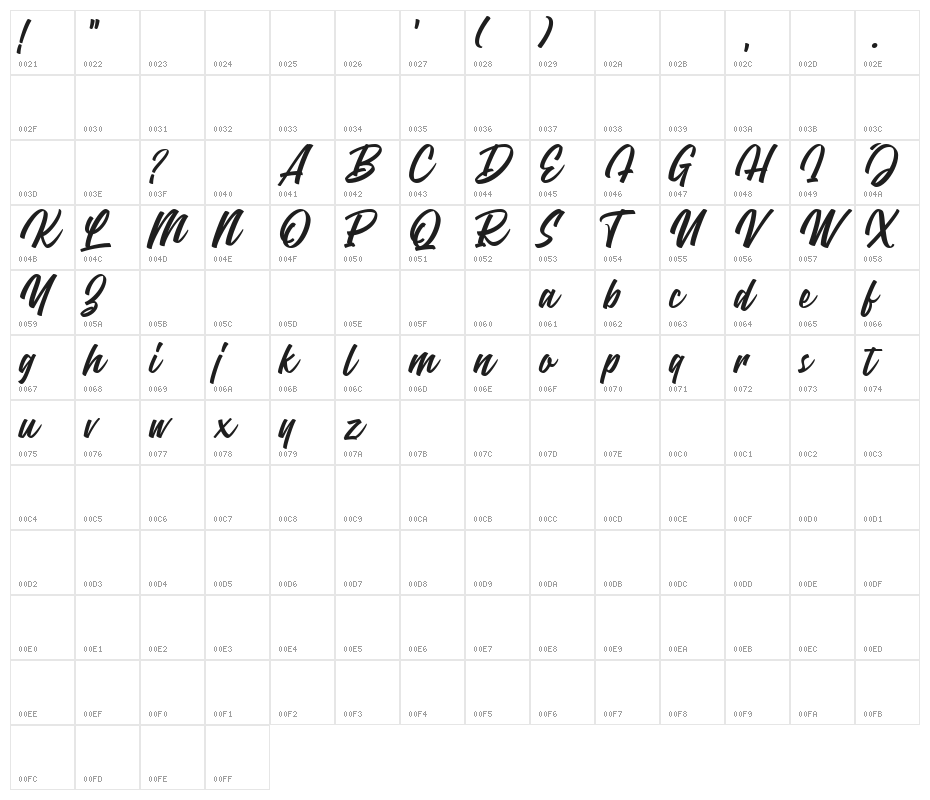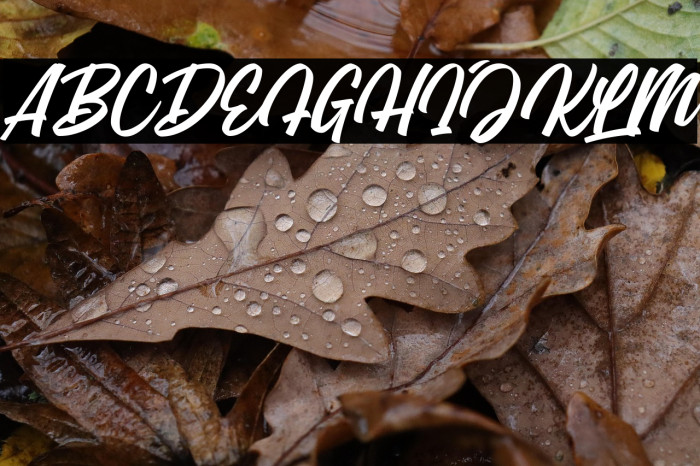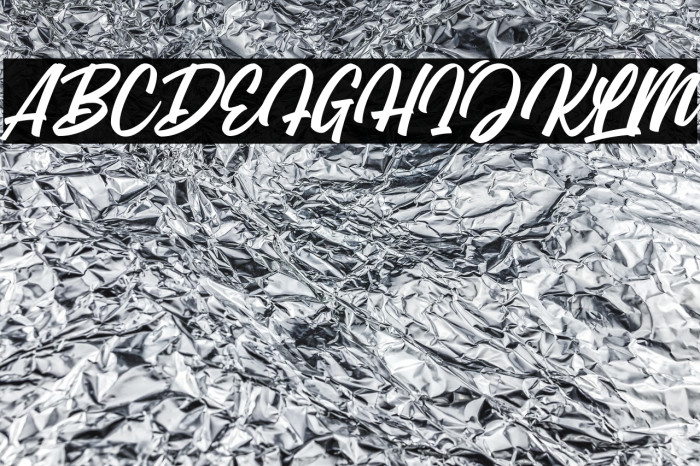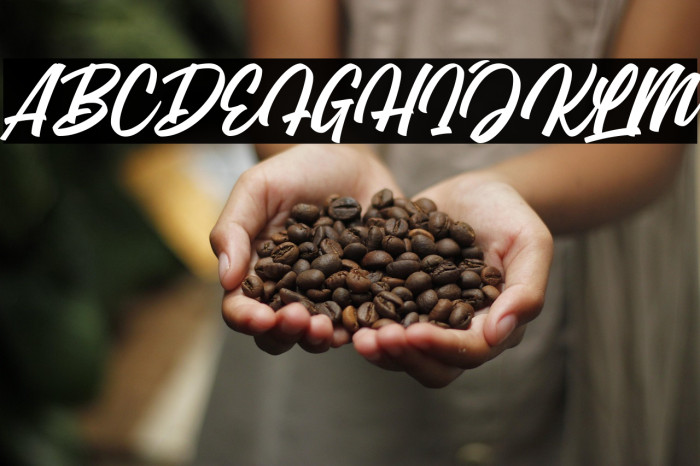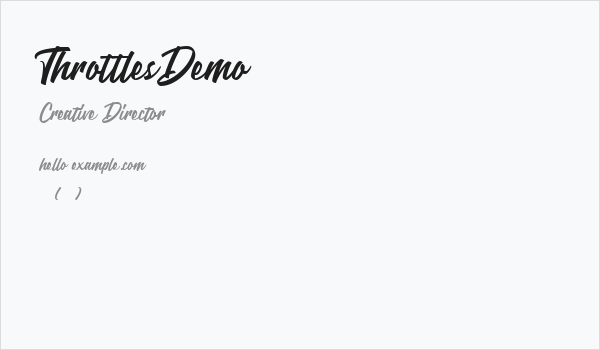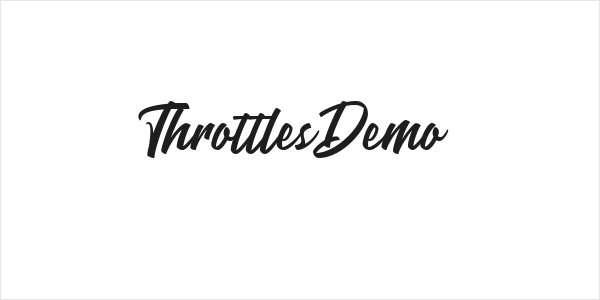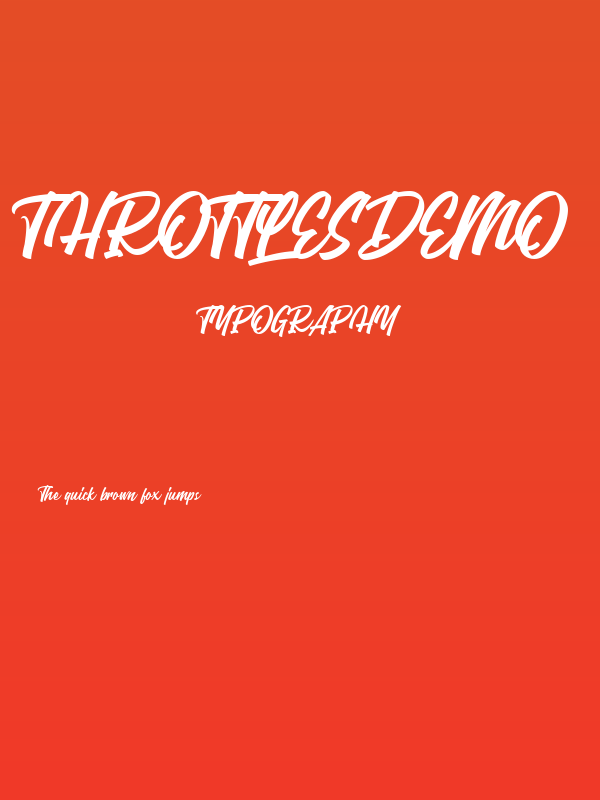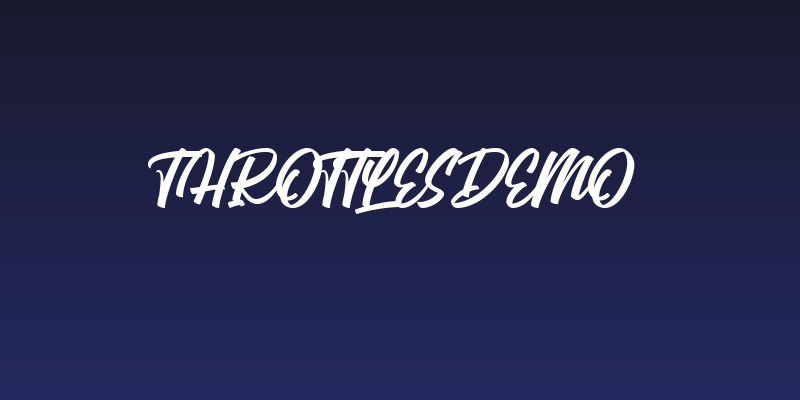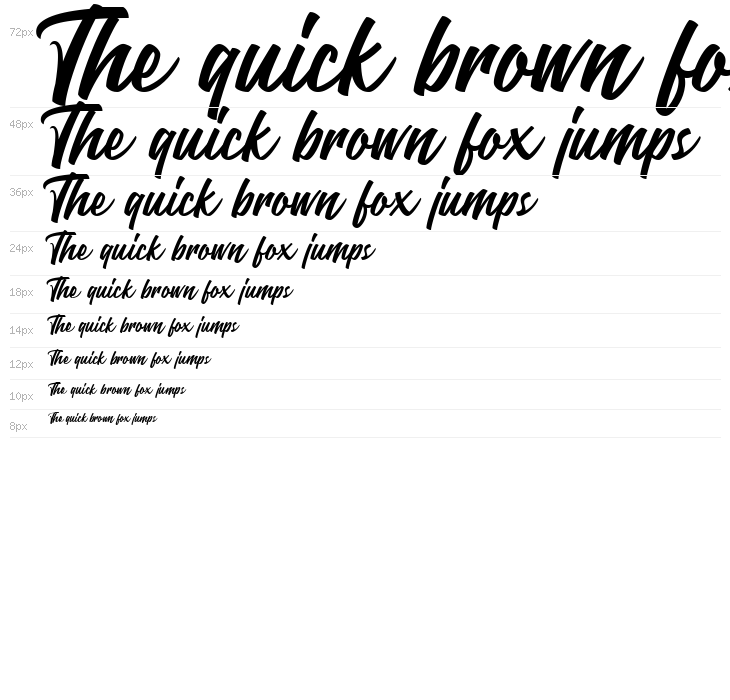
ThrottlesDemo Font
ThrottlesDemo Description
This font features a bold, energetic script style with a modern flair. The characters are connected, giving it a fluid, handwritten appearance. The uppercase letters are dynamic and slightly slanted, while the lowercase letters maintain a consistent flow. The strokes are thick, providing a strong presence and high contrast. The font is versatile, suitable for creating impactful headlines or logos. The special characters retain the same boldness, ensuring consistency across all text elements.
| Proposed Projects | Ideal for branding projects, logo design, headlines, and social media graphics where a bold, personal touch is desired. |